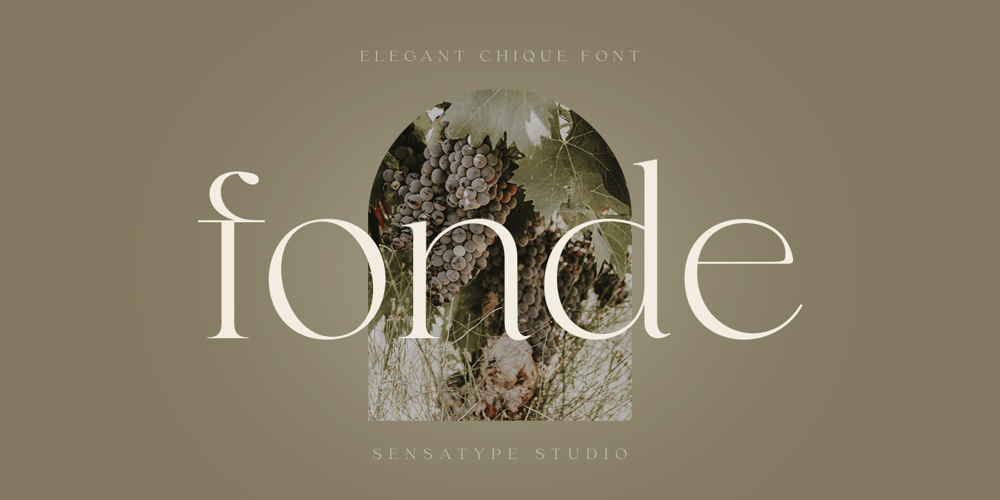
Fonde SS Font Family was designed by Zamroni Hamzah and published by Sensatype Studio. Fonde SS contains 1 styles and family package options. fonde is a elegant chic font for brand, logo and quotes design.Based on our experience as a graphic designer who works for a lot of companies, we often are requested to design a logo in a unique style but with an elegant shape. So, we try to brainstorming and create this font to make the idea is going out. This is perfect for BRANDING and LOGO DESIGN. You will get classy, elegant, and certainly unique logos with this font.fonde is also included full set of: uppercase and lowercase letters multilingual characters numerals punctuation Wish you enjoy our font. 🙂